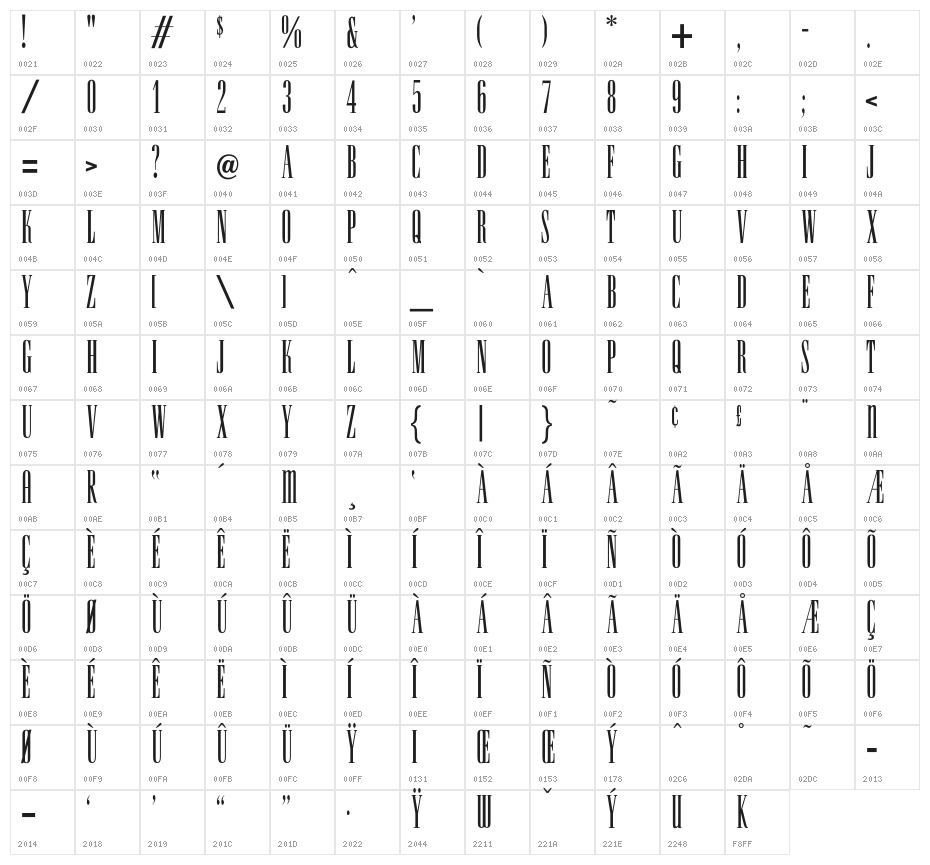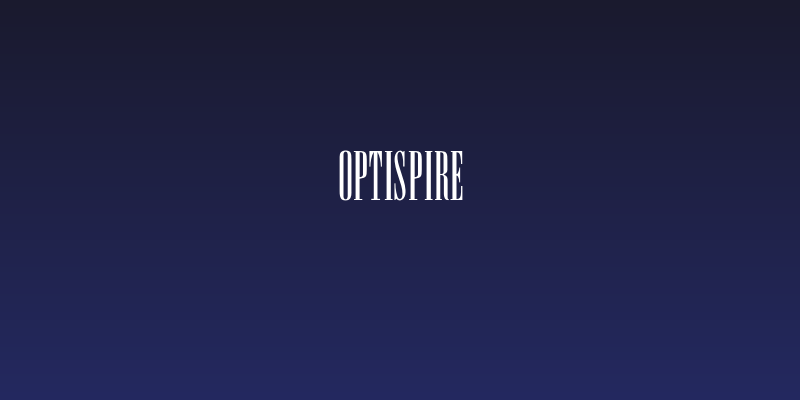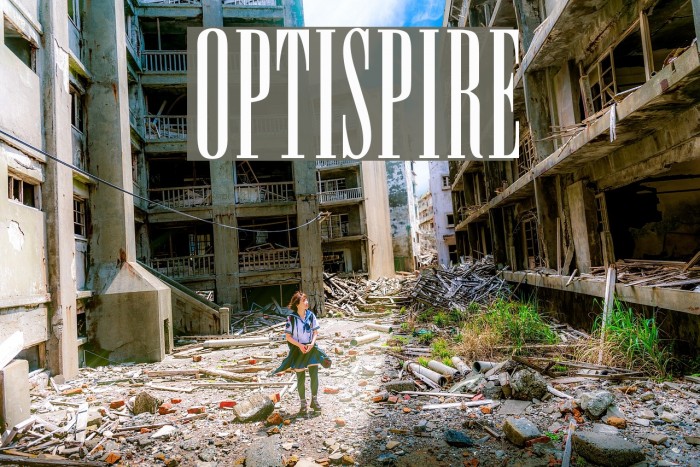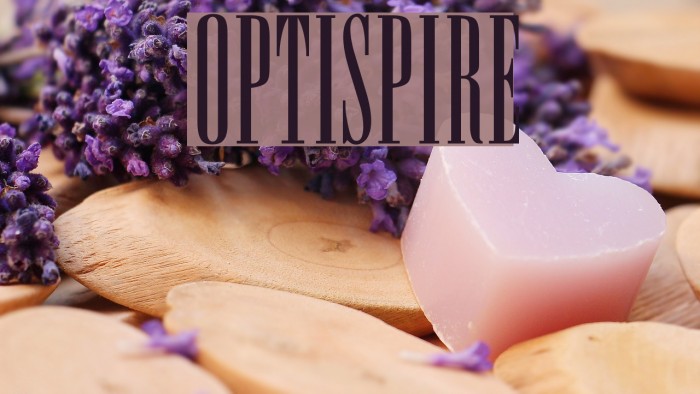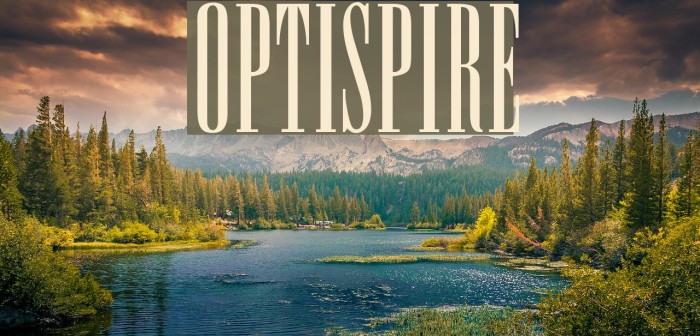
OPTISpire Font
OPTISpire Description
This font features an elegant and tall design with a strong vertical emphasis, characterized by its condensed letterforms and high contrast between thick and thin strokes. The uppercase letters are particularly elongated, giving a sophisticated and modern appearance. The lowercase letters maintain a similar style, ensuring consistency across text. The numerals are clear and distinct, matching the overall aesthetic. Special characters are well-integrated, offering versatility for various uses. The font's refined and stylish nature makes it suitable for high-impact designs.
| Width | Condensed |
| Proposed Projects | Ideal for luxury branding, editorial headlines, fashion magazines, and elegant invitations. |